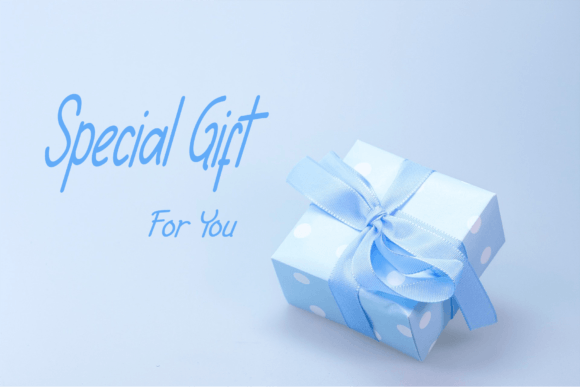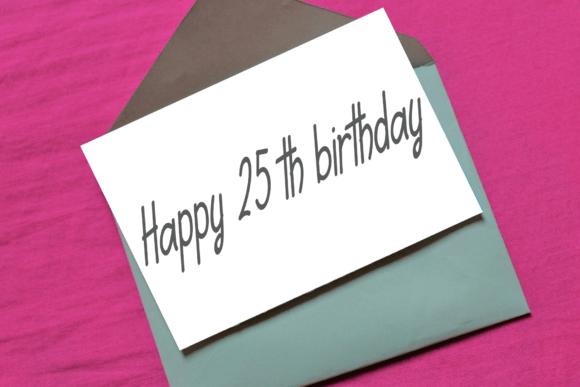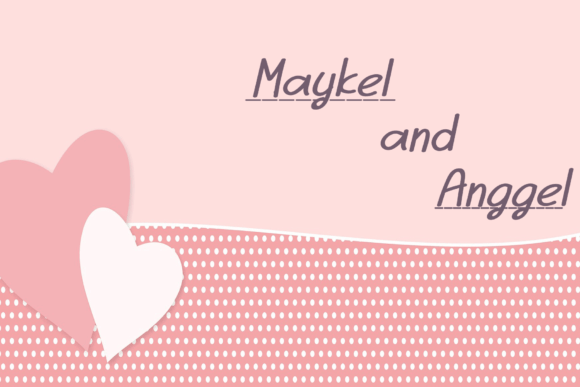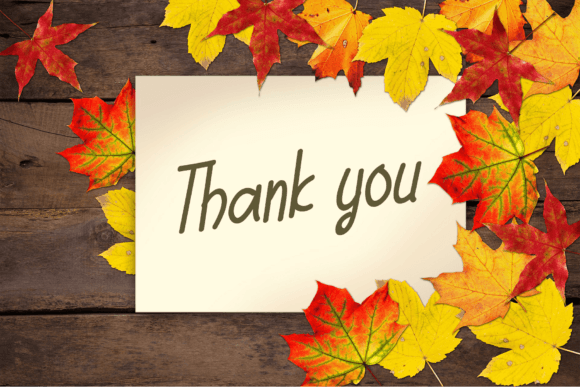
Introducing Birthday Candle Font: Elevate Your Designs with a Touch of Elegance
Are you tired of using the same old fonts for your designs? Look no further! Birthday Candle Font is a fancy handwritten font that is sure to add a touch of elegance and sophistication to your creative work. In this article, we’ll dive into the world of Birthday Candle Font, exploring its features, uses, and benefits for designers and crafters.
What is Birthday Candle Font?
Birthday Candle Font is a beautifully crafted handwritten font that is perfect for adding a personal touch to your designs. Its unique and elegant style makes it an excellent choice for a wide range of applications, from logo design to social media graphics, movie titles, and book titles.
This stunning font is designed to help you create visually appealing and creative works that stand out from the crowd. With Birthday Candle Font, you can add a touch of whimsy and sophistication to your designs, making them truly unforgettable.
Key Features of Birthday Candle Font
So, what makes Birthday Candle Font so special? Here are some of its key features:
- Fancy Handwritten Style: Birthday Candle Font boasts a beautiful, elegant handwritten style that is sure to add a touch of sophistication to your designs.
- Versatile: This font is perfect for a wide range of applications, including logo design, social media graphics, movie titles, book titles, and more.
- High-Quality: This font is crafted with high-quality code, ensuring that it looks great in any design.
Uses of Birthday Candle Font
So, how can you use Birthday Candle Font in your designs? Here are some ideas to get you started:
- Logo Design: Create a stunning logo for your business or brand with Birthday Candle Font.
- Social Media Graphics: Add a touch of elegance to your social media graphics, including Facebook posts, Instagram stories, and Twitter headers.
- Movie Titles: Create eye-catching movie titles and posters with Birthday Candle Font.
- Book Titles: Add a touch of sophistication to your book titles and covers with this beautiful font.
- Crafting Projects: Use Birthday Candle Font to add a personal touch to your crafting projects, including handmade cards, gift tags, and more.
Benefits of Using Birthday Candle Font
So, why should you choose Birthday Candle Font for your designs? Here are some benefits:
- Unique and Creative: Birthday Candle Font is a unique and creative font that will help your designs stand out from the crowd.
- Elegant and Sophisticated: This font adds a touch of elegance and sophistication to your designs, making them perfect for professional and personal projects.
- High-Quality: This font is crafted with high-quality code, ensuring that it looks great in any design.
In conclusion, Birthday Candle Font is a beautiful and elegant handwritten font that is perfect for adding a touch of sophistication to your designs. With its unique and creative style, versatility, and ease of use, this font is an excellent choice for designers and crafters of all levels.